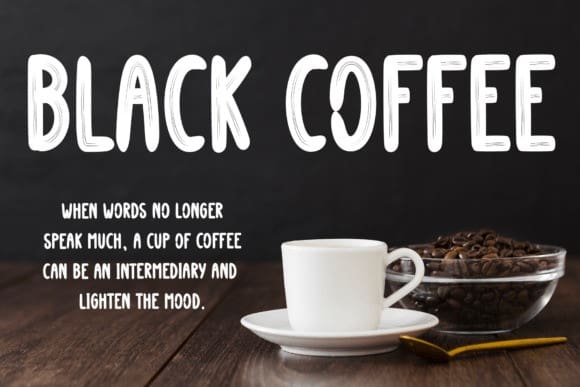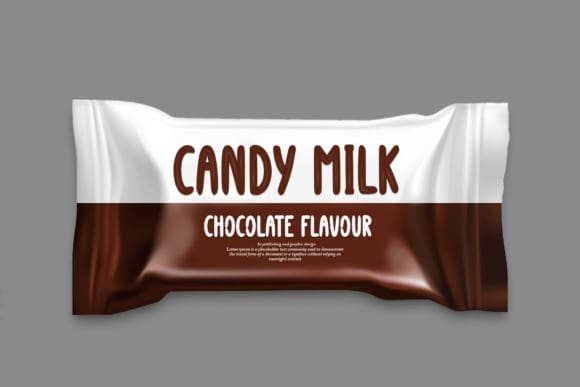
Black Canvas Font
Black Canvas is a modern handwritten script. This font looks natural, stylish, and perfect for any extraordinary project that requires a handwritten feel. Its versatile style looks lovely on wedding invitations, thank you cards, quotes, greeting cards, logos, business cards, and every other design which needs a customized touch.